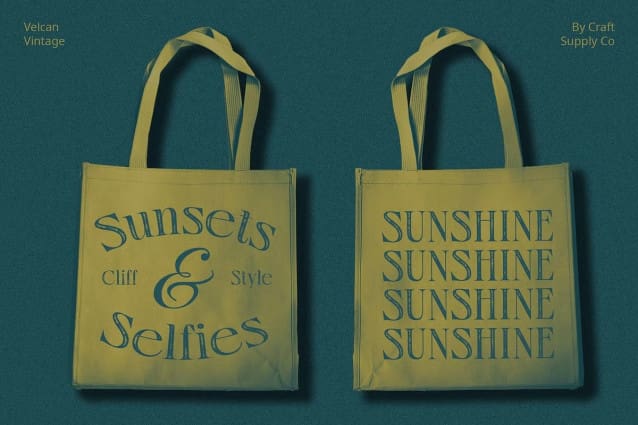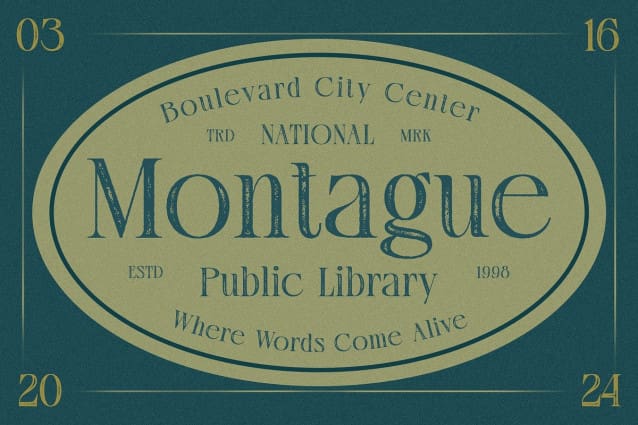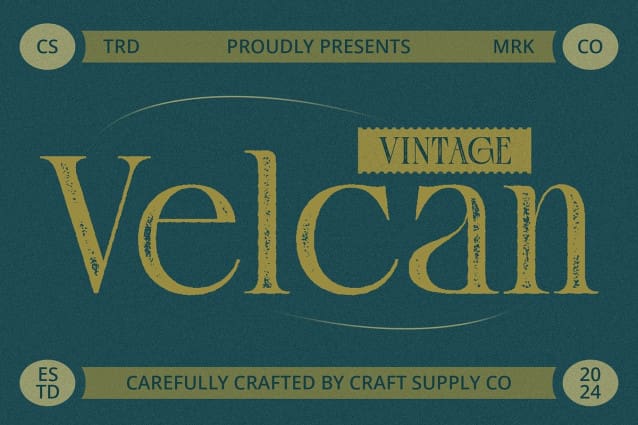
Velcan Vintage Font
Velcan Vintage Font: Vintage Elegance in High Contrast. High Contrast Serif Design Velcan Vintage features a striking high contrast serif design that commands attention and adds sophistication to any project. Its bold strokes and delicate serifs create a captivating visual impact.
Rough Stamp Drawn Effect With its rough stamp drawn effect, This font exudes a vintage charm reminiscent of old-fashioned printed materials. Each character carries the distinctiveness of hand-drawn imperfections, adding authenticity to your designs.
Ideal for Display Designed specifically for display purposes, This font shines in headlines, titles, and other prominent text elements. Its high contrast and vintage effect make it a standout choice for projects seeking to evoke a sense of nostalgia and elegance.
Versatile Application Despite its vintage aesthetic, This font is versatile in its application. From branding and packaging to posters and signage, it lends a touch of timeless elegance to a variety of design projects.
Captivating Vintage Charm with Modern Sophistication This font combines the allure of vintage aesthetics with modern design sensibilities, making it a versatile and impactful choice for designers looking to infuse their projects with a touch of timeless elegance and character.